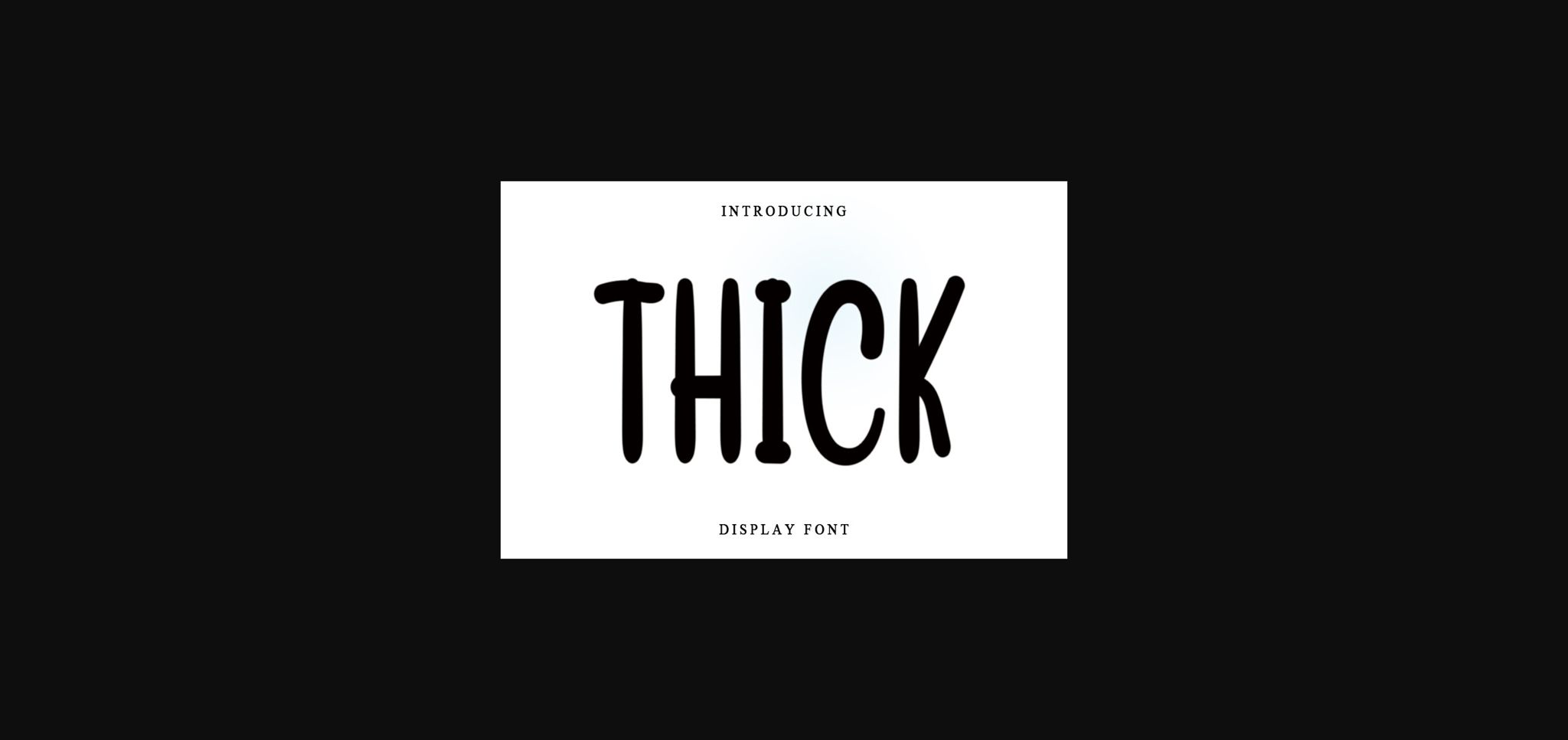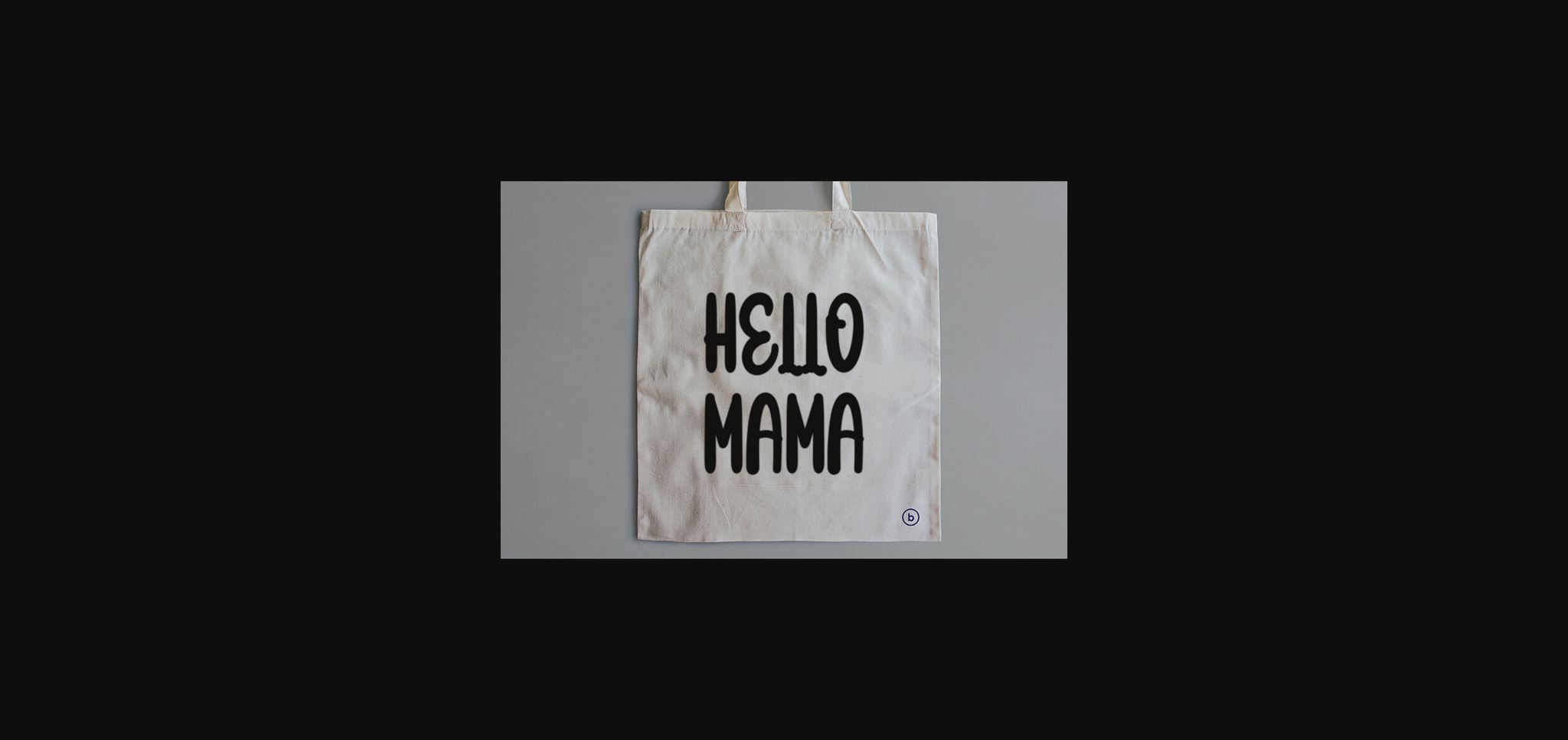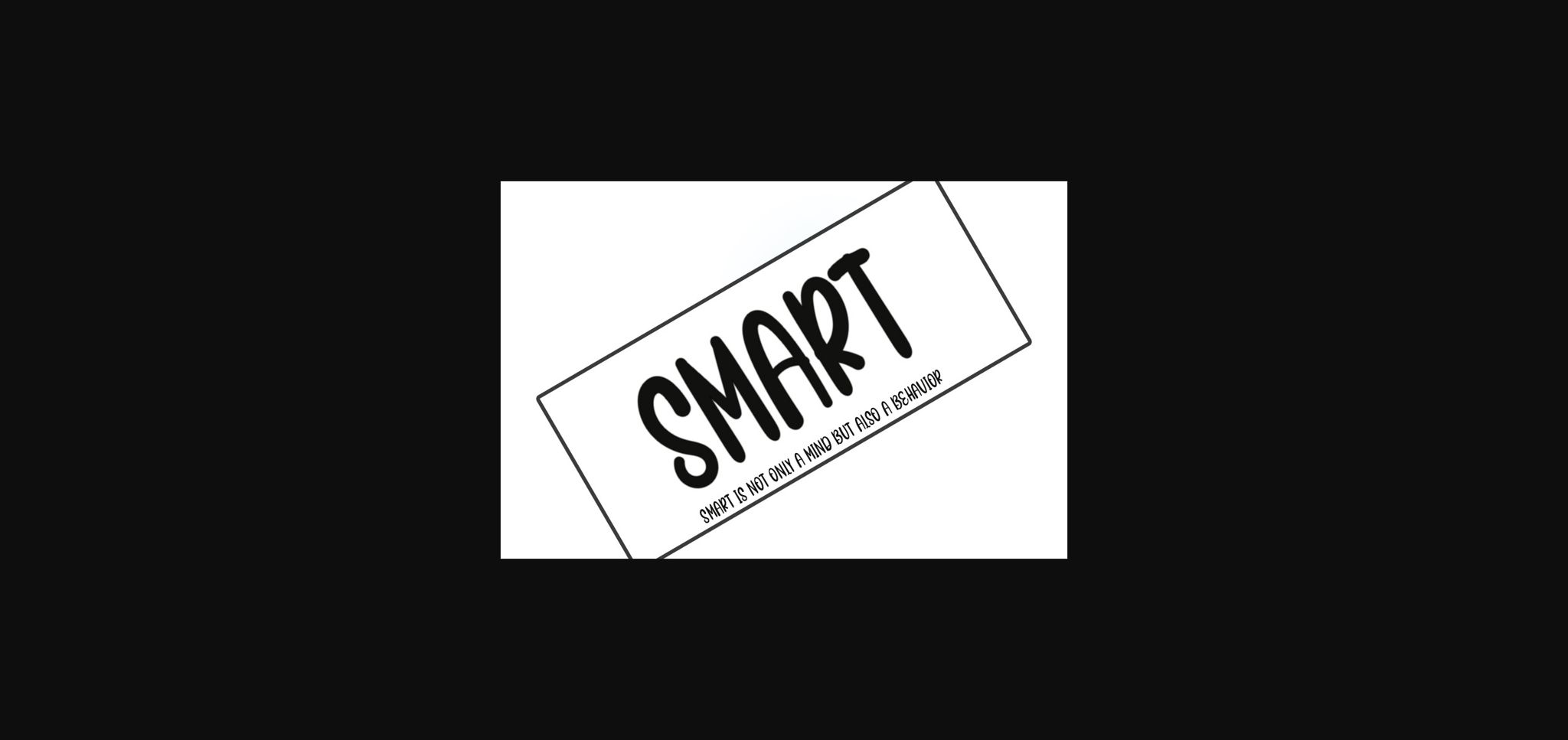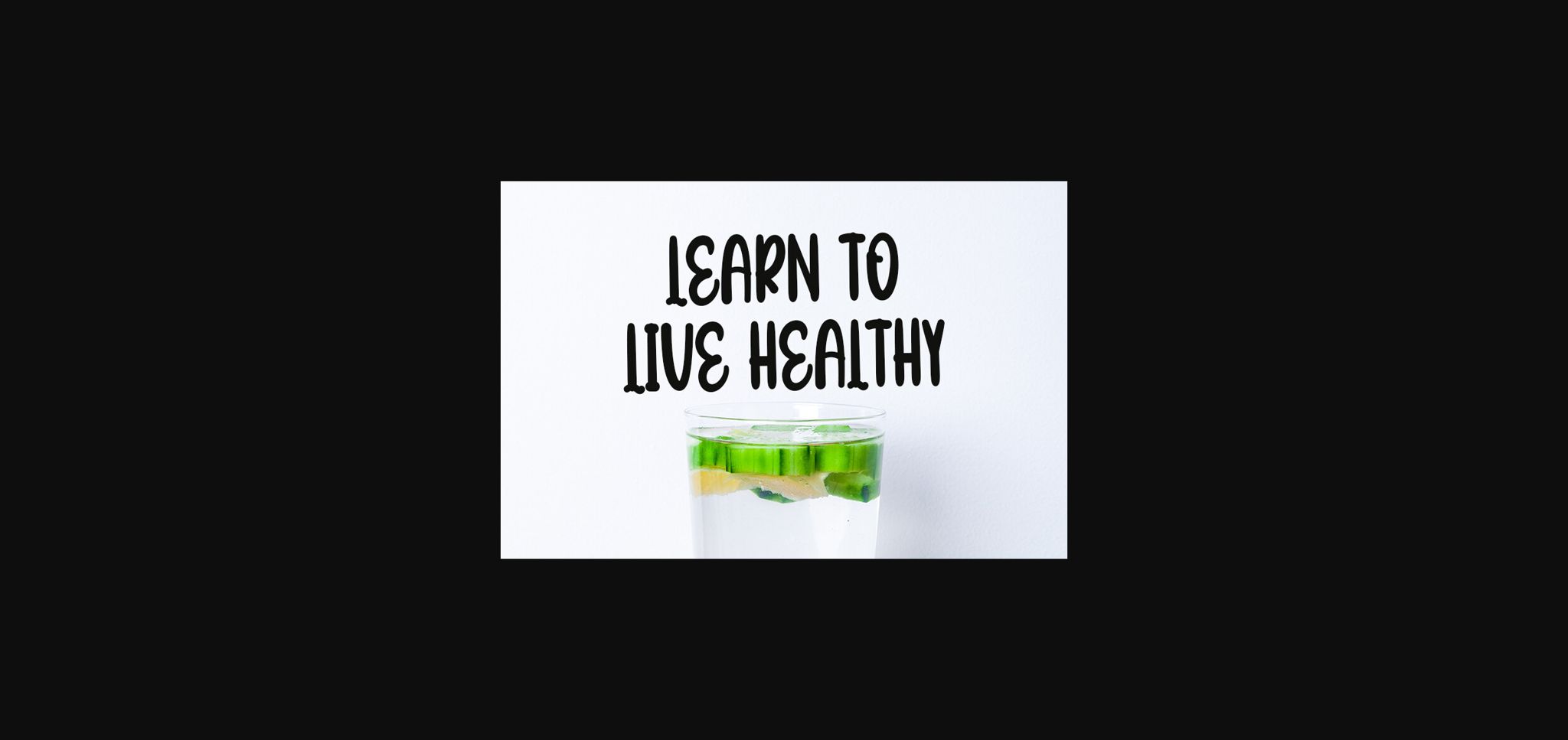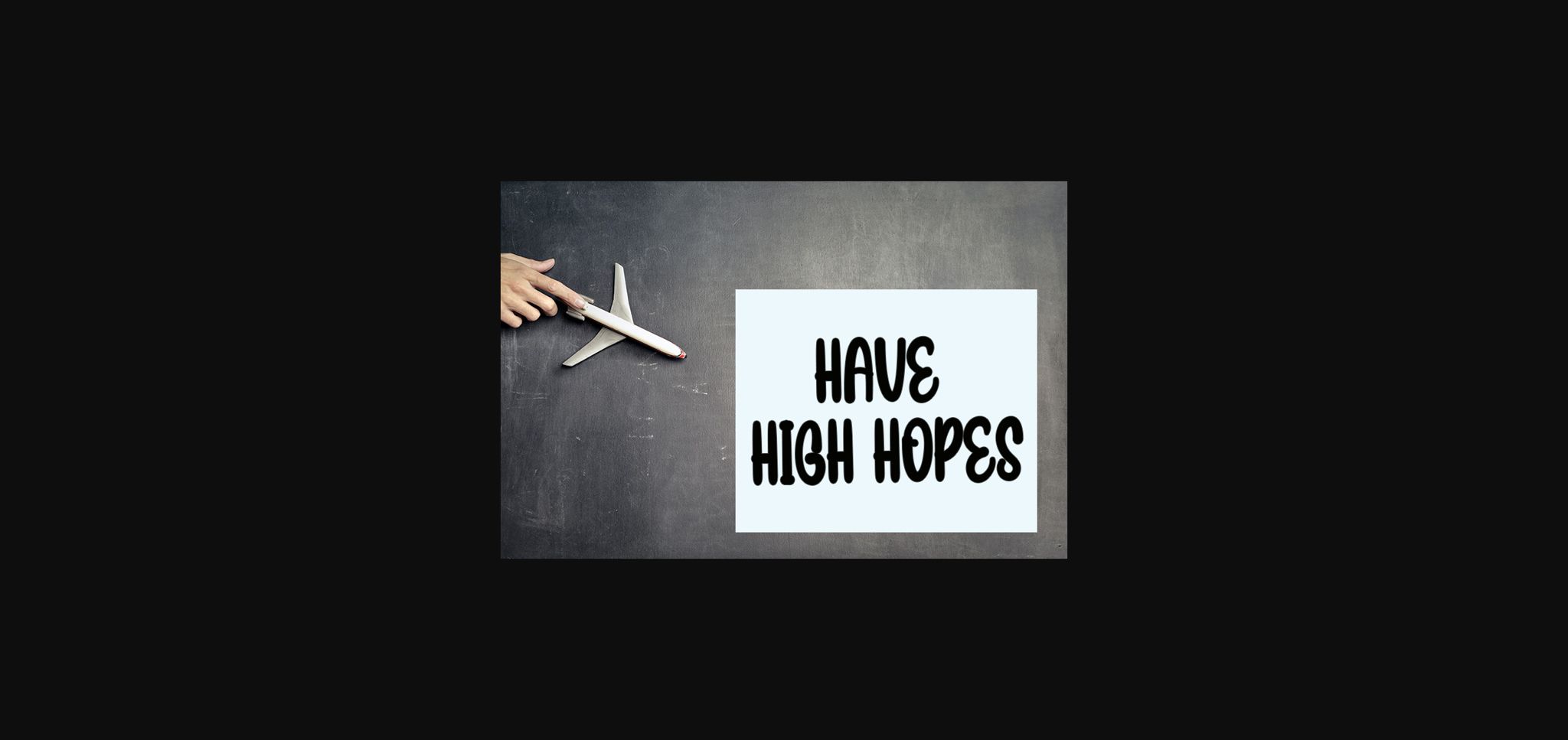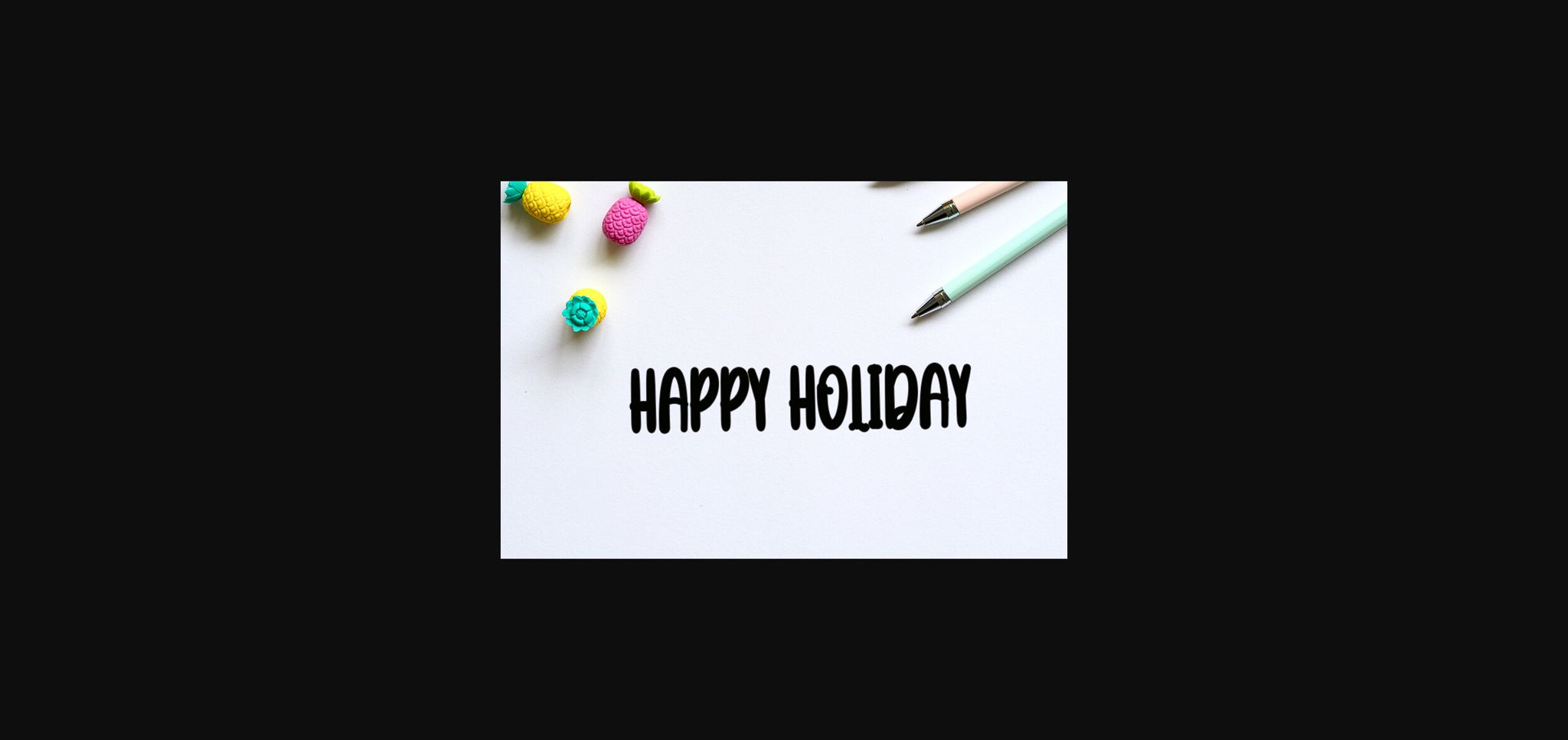
Thick Font
About Thick Font
Thick is a festive and happy typeface that captures the spirit of the holiday season. With its decorative elements and unique flair, it adds a touch of charm to your designs. Perfect for greeting cards, gift labels, and holiday-themed projects, this font brings a cheerful and nostalgic atmosphere to your words.